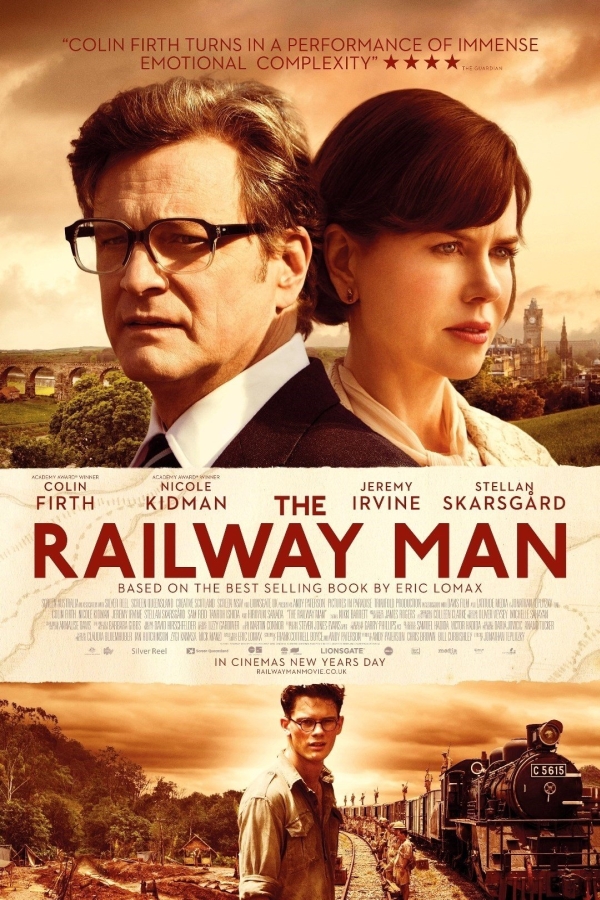
The Railway Man Font
Fonts in UseThe Railway Man is a 2013 biographical drama film directed by Jonathan Teplitzky. It tells the true story of Eric Lomax, a former British soldier, and prisoner of war, who confronts his traumatic past when he sets out to confront the Japanese officer who tortured him during World War II.
The movie title on the poster of "The Railway Man" is most likely set in P22 Johnston Underground, a sans serif font created by Edward Johnston for the London Underground system in 1916.